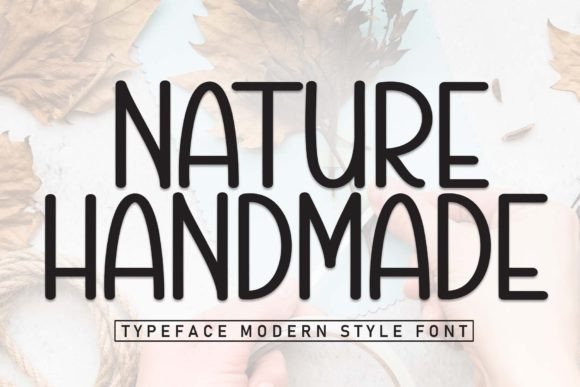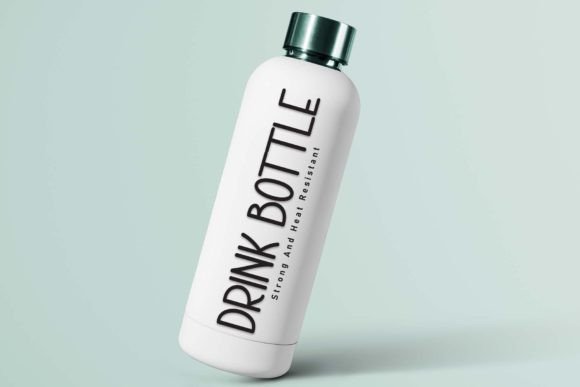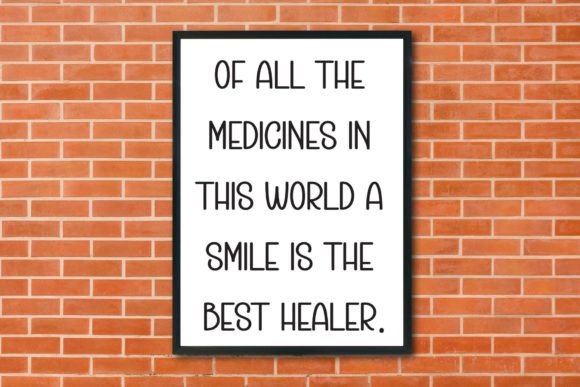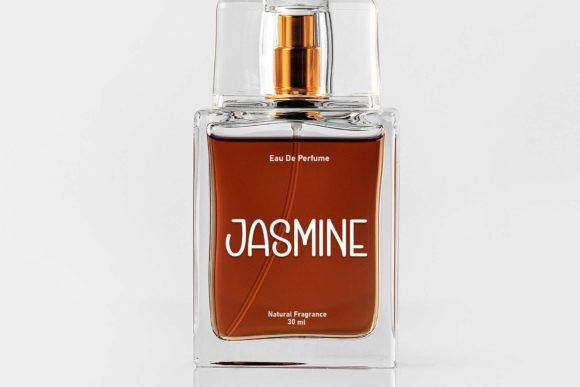
Nature Handmade Font
About the Nature Handmade Font
Meet Nature Handmade Font, a stunning font that brings a touch of elegance and professionalism to any design. Nature Handmade is a neat and casual sans-serif font that embodies simplicity and readability. With its clean lines and friendly character, it’s perfect for user interfaces, informative signage, and modern branding. Whether for digital or print, this font ensures your message stands clear and approachable.
Nature Handmade’s friendly, approachable nature makes it ideal for branding projects emphasizing approachability and a human touch, such as children’s products, cafes, or eco-conscious businesses. It works well in headlines, short text blocks, and logos, but less effectively in body copy or extended reading due to its casual style. Avoid using it for UI elements requiring high levels of legibility at small sizes.
Pairing it with a classic serif like Garamond or a more geometric sans-serif such as Futura creates a balanced contrast. For a playful feel, consider pairing it with a handwritten script like Pacifico. These pairings offer visual interest while maintaining readability and coherence.
The font’s overall personality is best described as cheerful and inviting, yet subtly sophisticated, making it versatile for a broad range of applications where a friendly, modern aesthetic is desired.